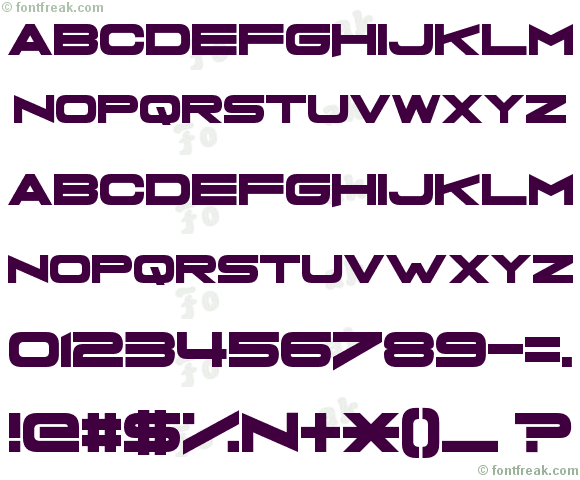
Grandma's Television
About Grandma's Television
The Grandma's Television font by Andrew McCluskey is a striking display typeface that combines a modern aesthetic with a nostalgic touch. This font features a unique geometric design characterized by its bold stroke weight and clean lines, making it stand out in any application. The uniform contrast and well-balanced spacing give it a contemporary feel while still evoking a sense of warmth reminiscent of classic television aesthetics. Decorative elements are minimal yet effective, contributing to its distinctive personality without overwhelming the overall design.
Ideal for a variety of creative projects, Grandma's Television shines in areas such as promotional materials, social media graphics, and branding for retro-themed events. Its playful yet sophisticated style makes it perfect for use in wedding invitations where a touch of whimsy is desired, or on movie posters that call for a bold statement to capture attention. Additionally, this font can enhance restaurant menus, adding a unique flair that draws patrons in, or be utilized in merchandise designs that aim to evoke a sense of nostalgia.
What sets Grandma's Television apart is its ability to merge contemporary style with a hint of retro charm, making it a versatile choice for a wide range of design needs. Its unique characteristics invite viewers to engage, ensuring that any project featuring this font will leave a lasting impression.